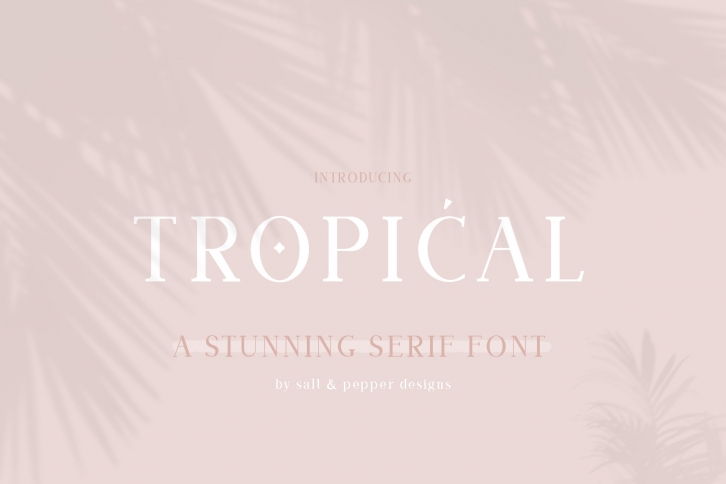
Tropical Serif is a trendy and unique font with an authentic style. It was designed by Salt and Pepper Designs and it's a great choice for creative people who need such a font. It was released on April 9, 2021 and the file size is 11.23 MB. Tropical Serif will add an organic vibe to any design idea!